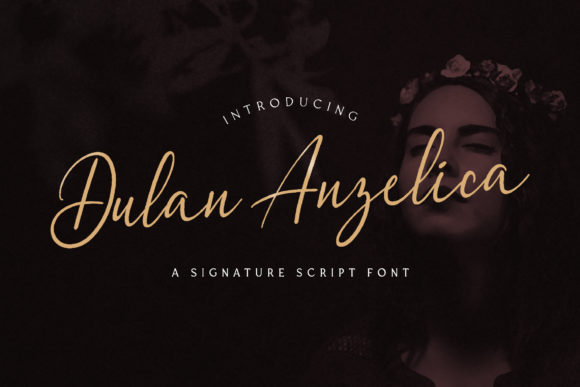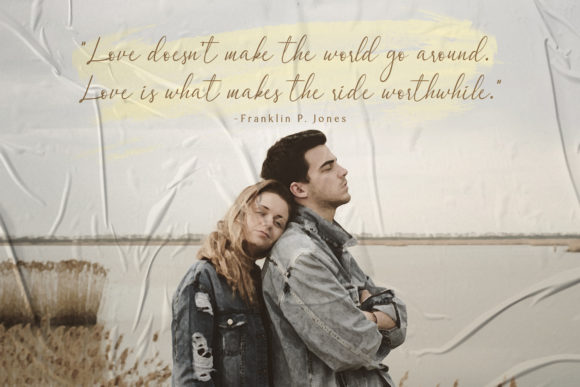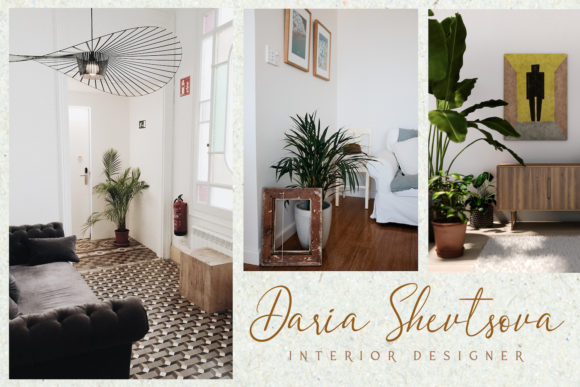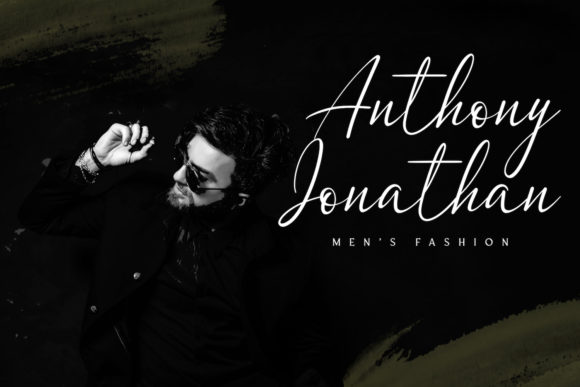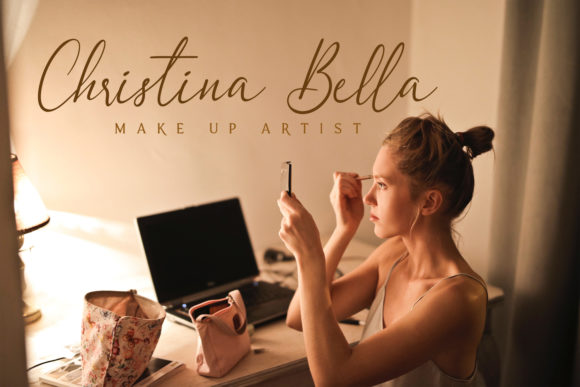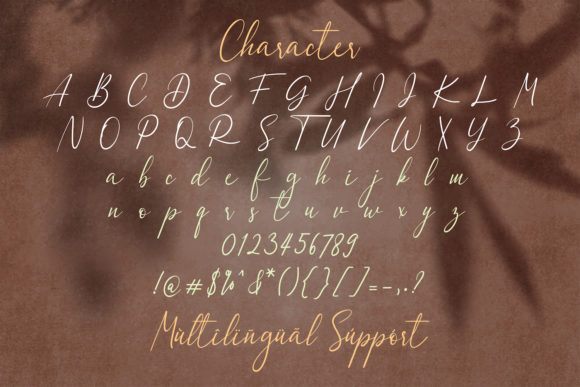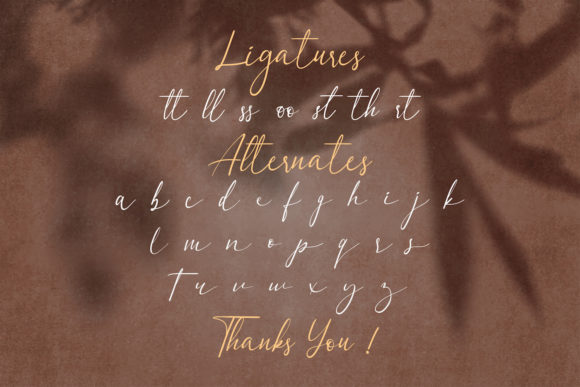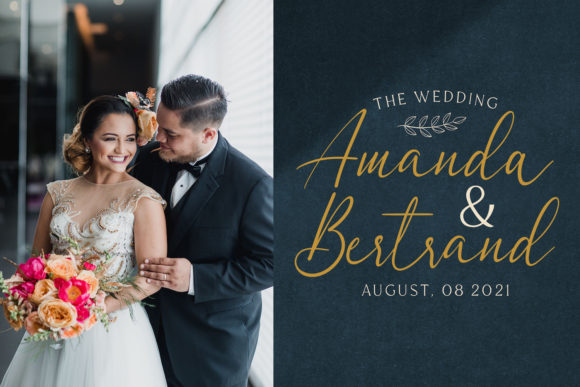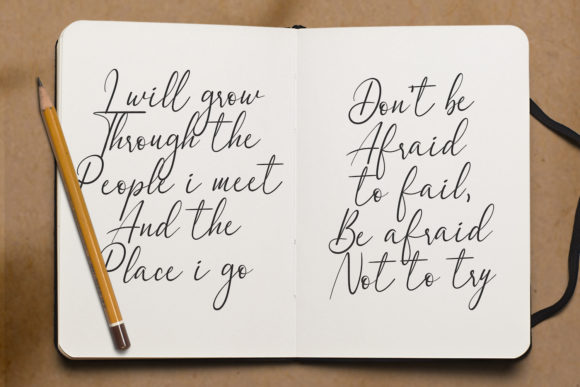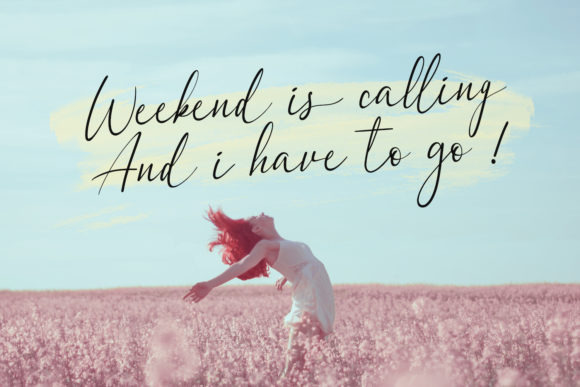
Dulan Anzelica Font
About Dulan Anzelica Font
Dulan Anzelica simplifies elegance into one truly outstanding script font. This font is the perfect fit for all of your logos, branding, social media, and crafty DIY projects.